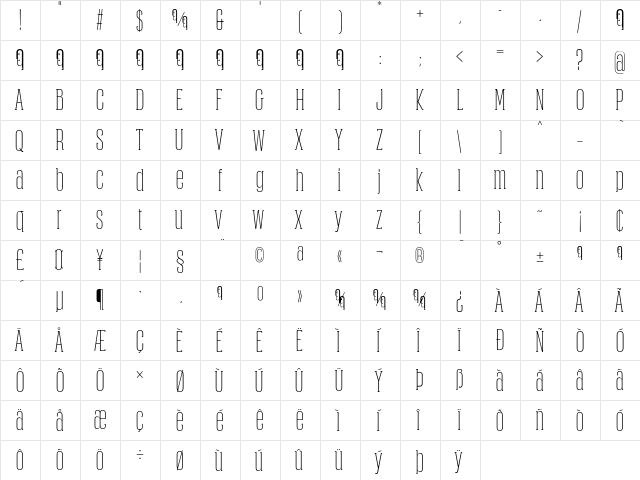
Obcecada Serif Regular
| Foundry | deFharo |
| Designer | Fernando Haro |
Design Context for Obcecada Serif Typeface
Obcecada Serif brings classic typographic sensibility to the table — its serifs and measured letterforms reflect centuries of print heritage.
Pro Tip: Use Obcecada Serif for editorial body copy and considered headline work. Pair with a neutral sans for UI elements or captions to create a classic hierarchy.